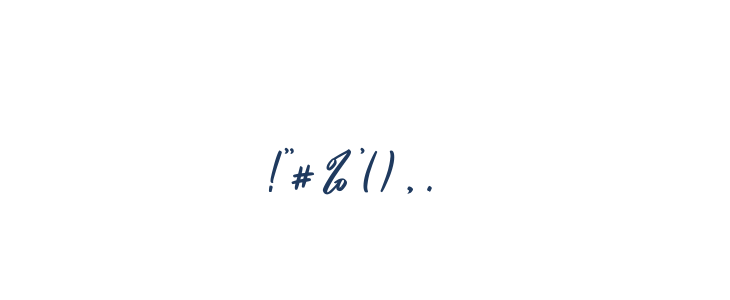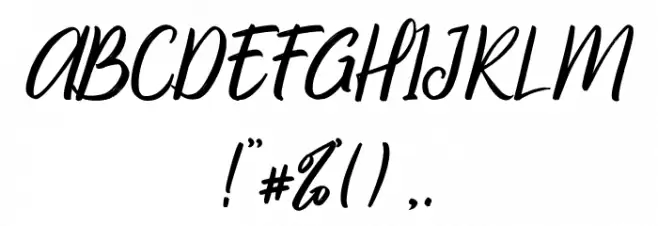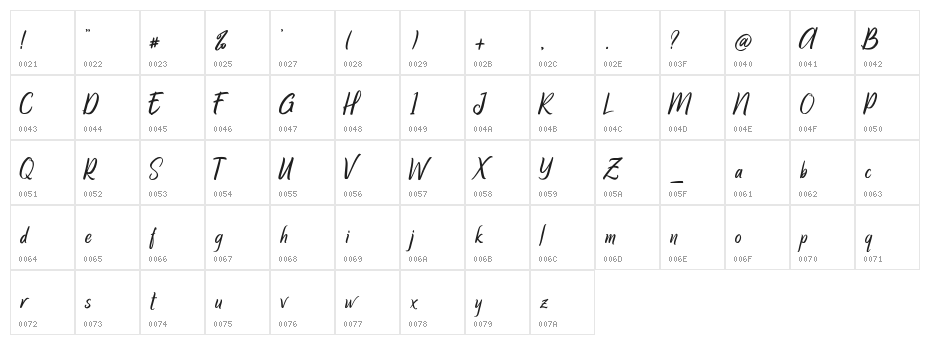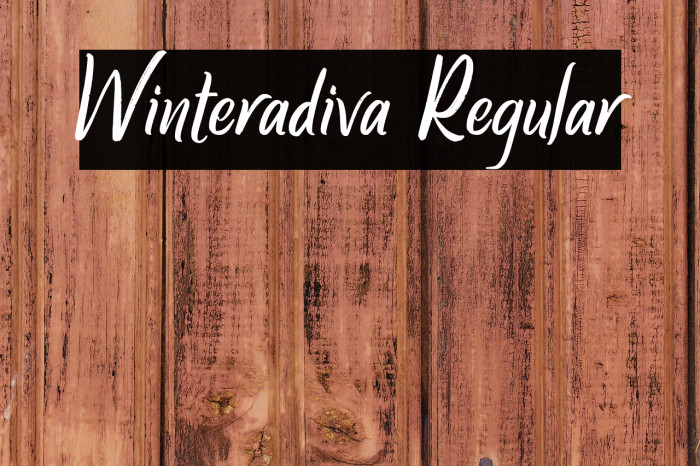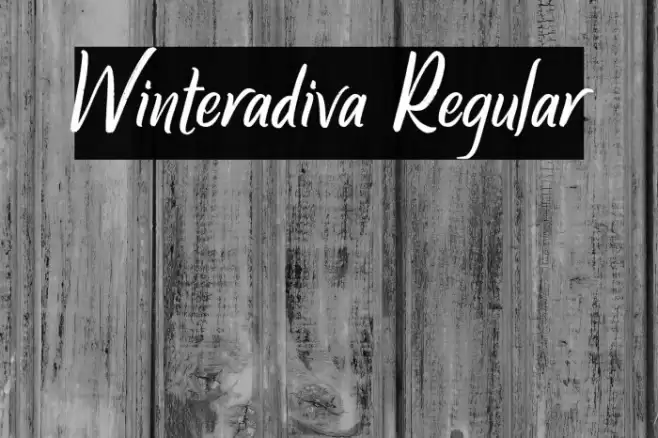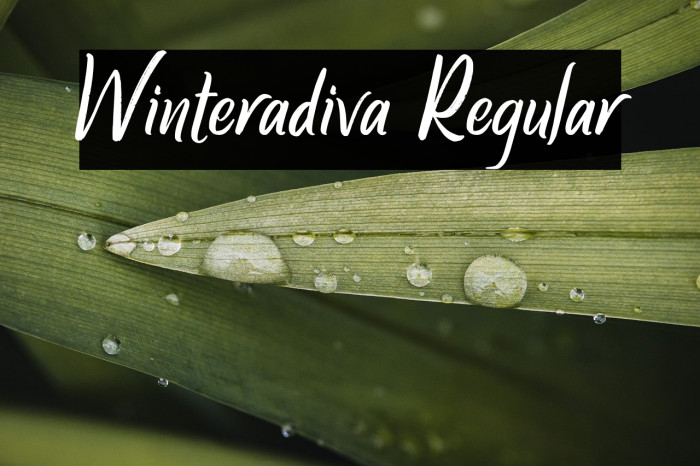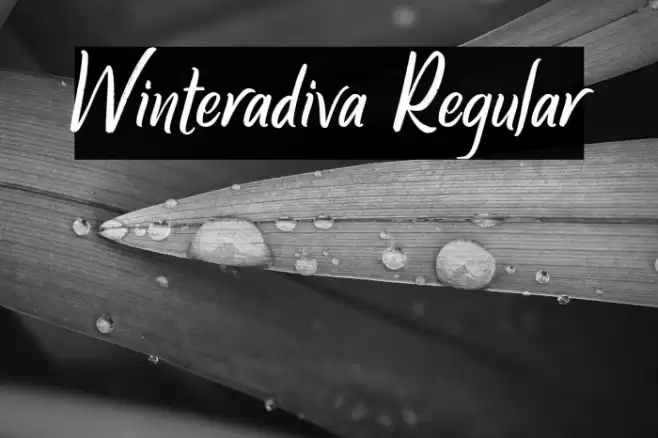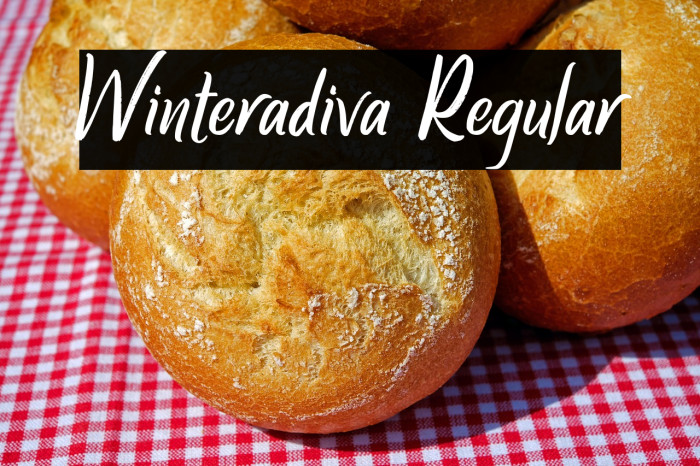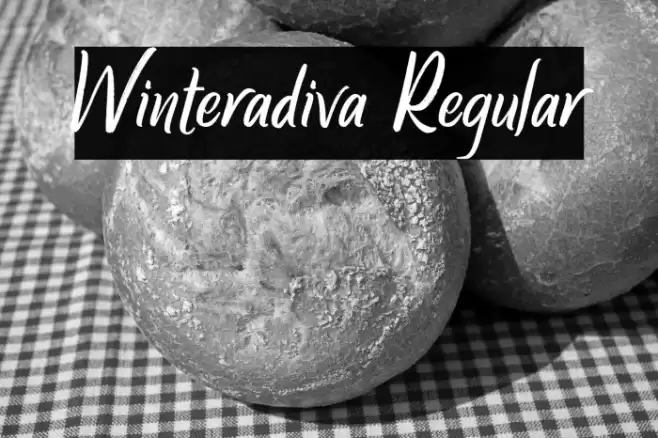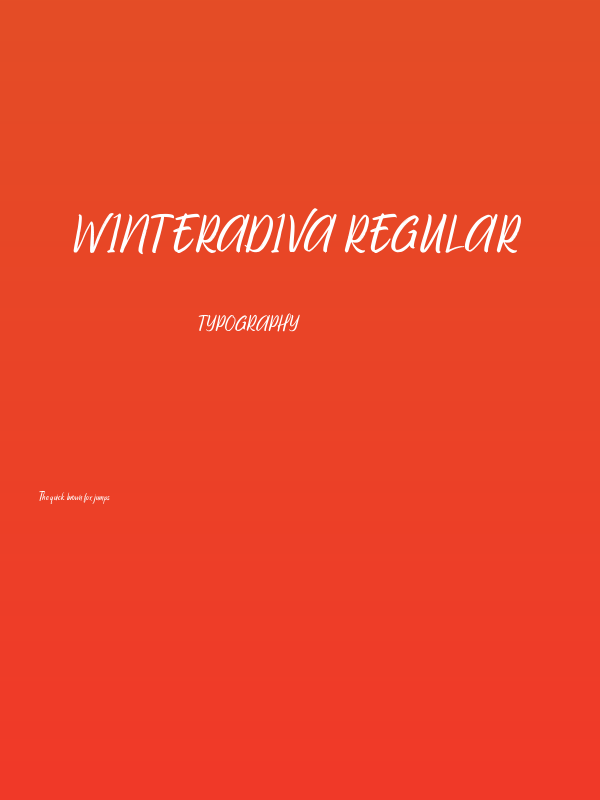
Winteradiva Regular Font
Winteradiva Regular Description
This font exudes a lively and dynamic character with its flowing, cursive style. The letters are elegantly connected, giving it a handwritten appearance that is both stylish and approachable. The uppercase letters are bold and slightly slanted, adding a sense of movement and energy. The lowercase letters maintain a consistent flow, enhancing readability while retaining a personal touch. The numerals and special characters are crafted with the same fluidity, ensuring a cohesive look across all text. This font is perfect for projects that require a personal, yet professional touch.
| Proposed Projects | Ideal for wedding invitations, greeting cards, personal branding, and creative projects that require a personal touch. |